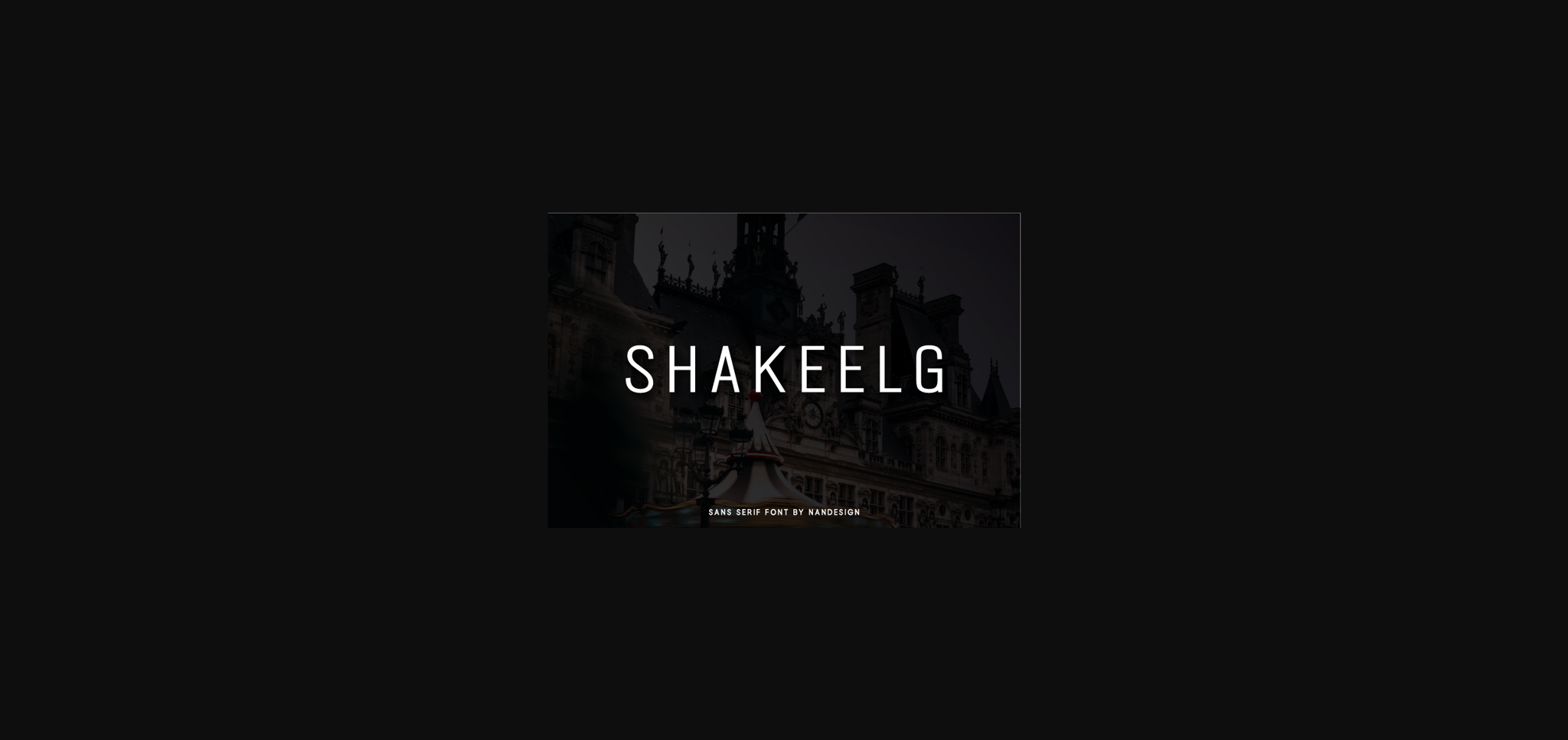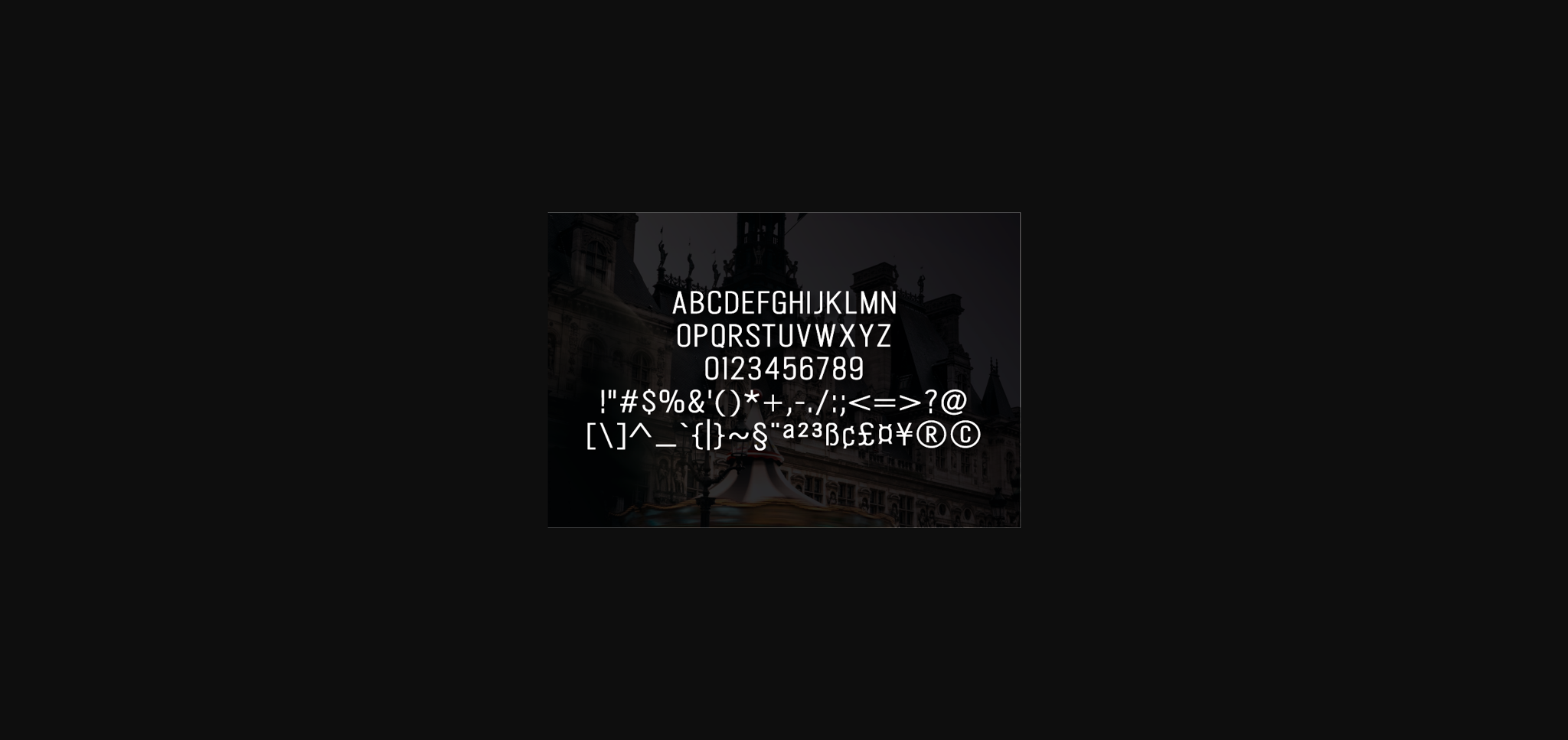
Shakeelg Font
About Shakeelg Font
Shakeelg is a modern sans serif font that features chunky and extended characters that will look particularly adept when used in logos, branding, packaging design, and much more. This masterfully designed typeface is a true must-have.